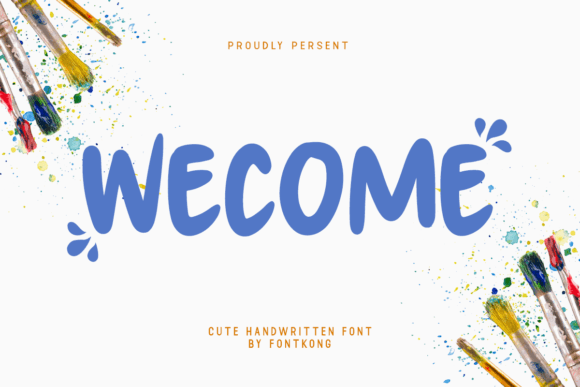
Introducing Wecome Display Kids Font, a lively and charming typeface designed to capture the playful spirit of childhood. With its bold, cheerful letters and fun, rounded shapes, Wecome is perfect for creating eye-catching designs that stand out. Whether you're working on a logo, social media post, or wedding invitation, this font brings a sense of joy and energy to any project. If you're looking for a free download of Wecome font, you're in the right place. This article will explore the unique qualities of Wecome, its best uses, and how to incorporate it into your creative workflow.
What is Wecome?
Wecome is a Display font that blends whimsy with clarity, making it ideal for projects that require a friendly and engaging visual tone. Its rounded edges and expressive letterforms give it a soft, approachable feel, while the bold weight ensures it remains legible at larger sizes. Unlike many other Display fonts that can be too ornate or difficult to read, Wecome strikes a balance between creativity and functionality. For those interested in a Wecome font download, this is a great option to consider. The font's design makes it a standout choice in the Display category, offering both aesthetic appeal and practical usability.
Letterforms and Weight
The letterforms in Wecome are characterized by their rounded corners and slightly exaggerated curves, which contribute to its playful personality. The font’s weight is consistent throughout, providing a cohesive look that works well in both headlines and short phrases. This uniformity helps maintain readability even when used in larger sizes, making it a reliable choice for designers looking for a free Display font for Fonts.
Spacing and Mood
Wecome features generous spacing between characters, which enhances its legibility and gives it a clean, modern appearance. The overall mood of the font is light-hearted and energetic, making it particularly suitable for children's content, marketing materials, and creative projects that aim to convey a sense of fun. Its design is versatile enough to work in both digital and print formats, making it an excellent addition to any designer's toolkit.
Design & Style Analysis
When comparing Wecome to other Display fonts, its unique blend of charm and clarity sets it apart. While some Display fonts lean heavily into ornate details, Wecome maintains a more straightforward yet expressive style. This makes it a great alternative for designers who want a font that is both distinctive and easy to use. Whether you're looking for a premium Display font or a free Display font for Fonts, Wecome offers a compelling option that balances creativity with practicality.
Weight and Visual Personality
The weight of Wecome is just right—bold enough to command attention but not so heavy that it becomes overwhelming. Its visual personality is warm and inviting, which makes it an excellent choice for branding, packaging, and other design elements that require a friendly presence. This font also works well in combination with other typefaces, as its clean lines allow it to complement a wide range of styles.
Comparison with Other Display Fonts
When compared to similar Display fonts, Wecome stands out for its balanced approach. While some fonts may prioritize uniqueness over readability, Wecome manages to achieve both. This makes it a valuable asset for designers who need a font that is both visually appealing and functional. Whether you're using it for a logo, a poster, or a website header, Wecome delivers a polished and professional look without sacrificing its playful essence.
Best Uses for Wecome
Wecome is incredibly versatile, making it suitable for a wide range of design applications. From logos and branding to social media posts and wedding invitations, this font adds a touch of personality to any project. Here are some of the most effective ways to use Wecome:
Wecome for Logo Design
For logo design, Wecome offers a fresh and dynamic look that can help a brand stand out. Its bold and rounded style is perfect for creating a memorable visual identity that feels approachable and modern. Whether you're designing a logo for a children's product or a creative business, Wecome provides a strong foundation for your typography.
Wecome for Branding
Branding requires a consistent and recognizable visual language, and Wecome can play a key role in that process. Its friendly and expressive style makes it ideal for building a brand that feels welcoming and authentic. Whether you're developing a new brand or updating an existing one, Wecome can help you create a cohesive and engaging look.
Wecome for Wedding Invitations
Wedding invitations often require a font that conveys both elegance and warmth, and Wecome fits the bill perfectly. Its playful yet refined style adds a personal touch to any invitation, making it an excellent choice for couples looking to add a unique flair to their event. When paired with complementary design elements, Wecome can elevate the overall aesthetic of your wedding stationery.
Font Pairing & Combinations
Pairing Wecome with other fonts can enhance its visual impact and create a more dynamic typographic hierarchy. One effective approach is to combine it with a serif font for contrast, allowing the boldness of Wecome to shine through. Alternatively, pairing it with a clean sans-serif can provide a modern and balanced look. Understanding what fonts pair well with Wecome can help you make informed choices for your design projects.
When comparing Wecome vs other Display fonts, consider the specific needs of your project. While some fonts may offer more complexity, Wecome's balance of style and readability often makes it a better fit for a wide range of applications. By taking the time to experiment and refine your approach, you can unlock the full potential of this versatile font.